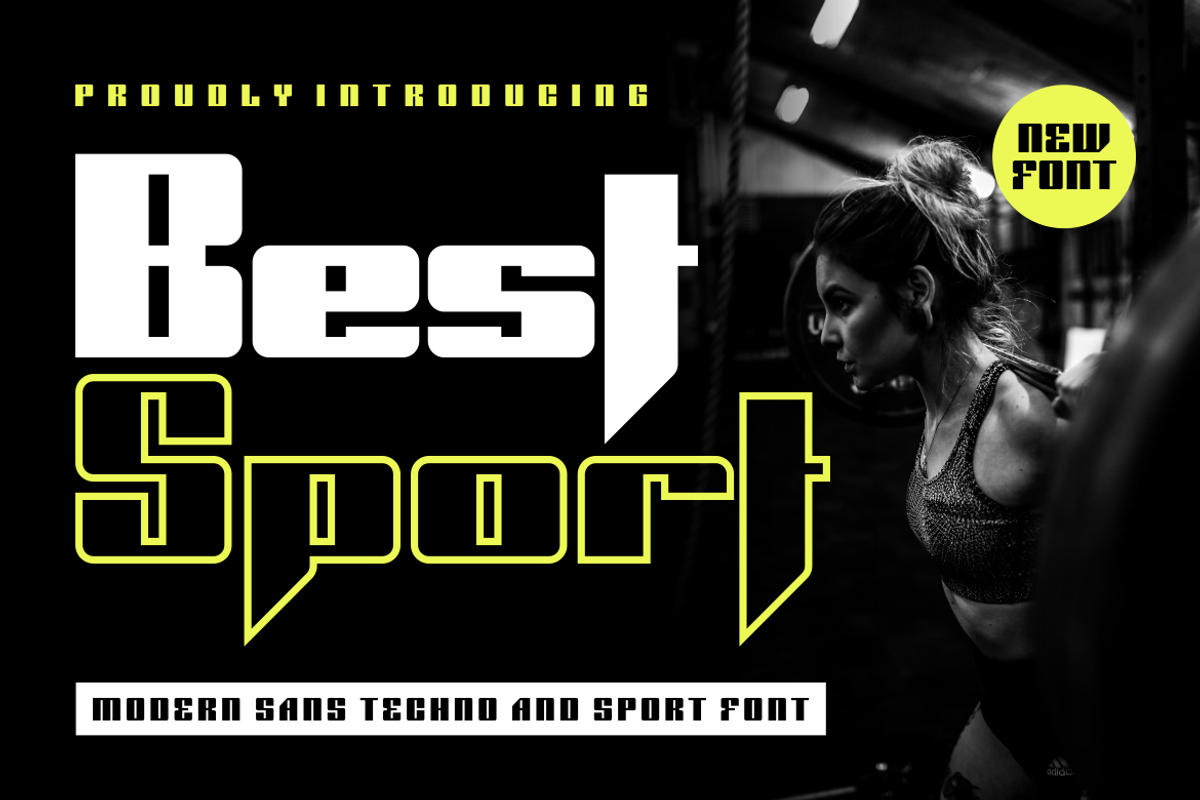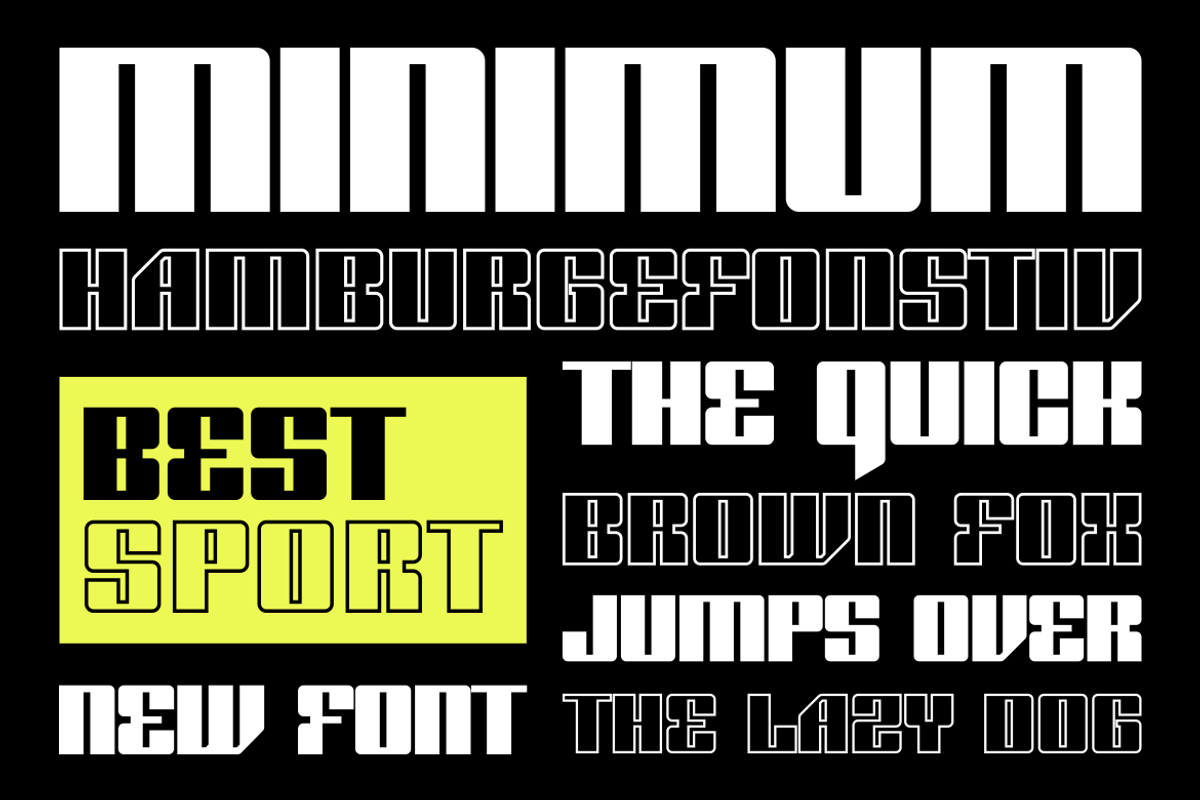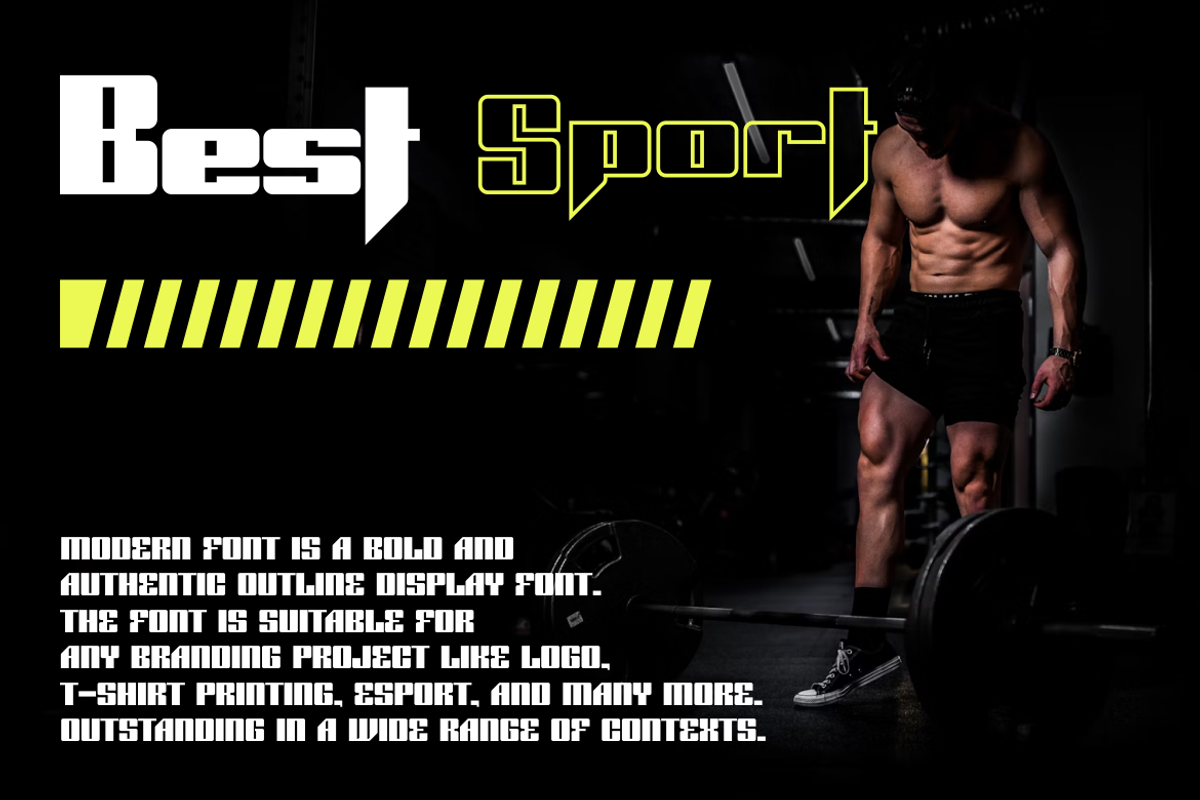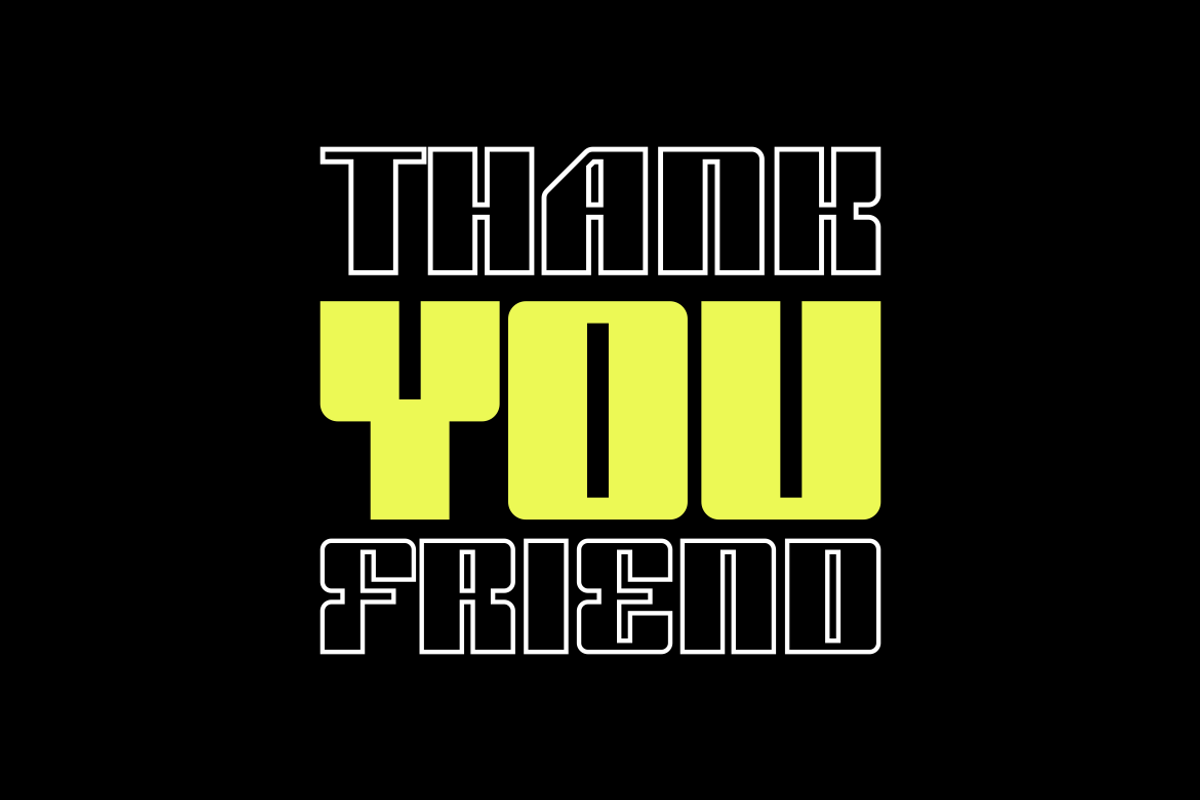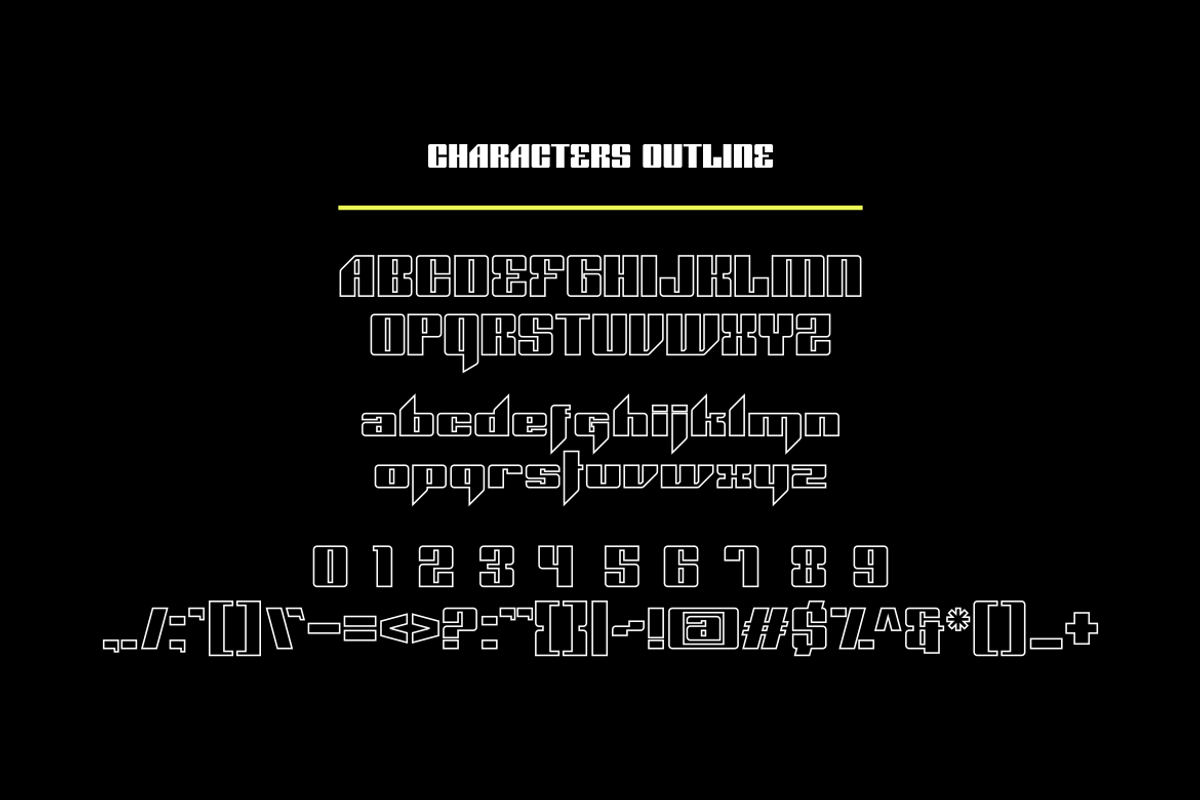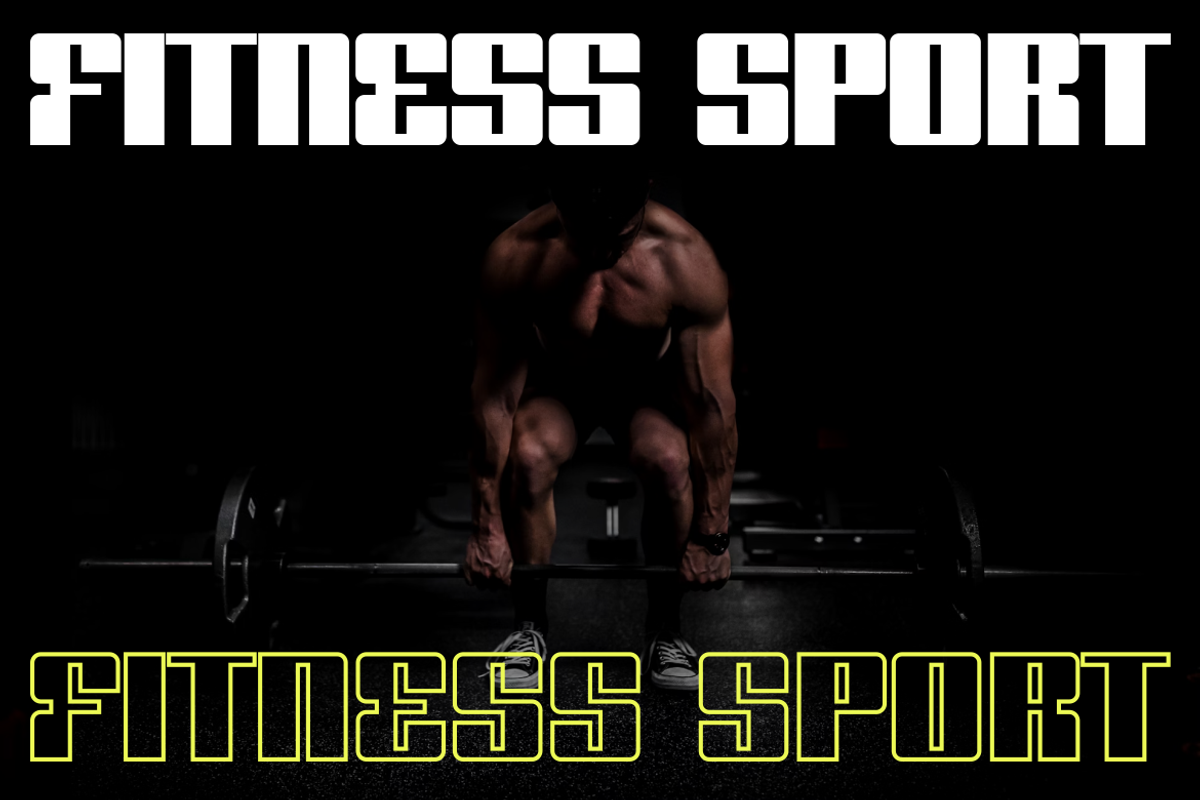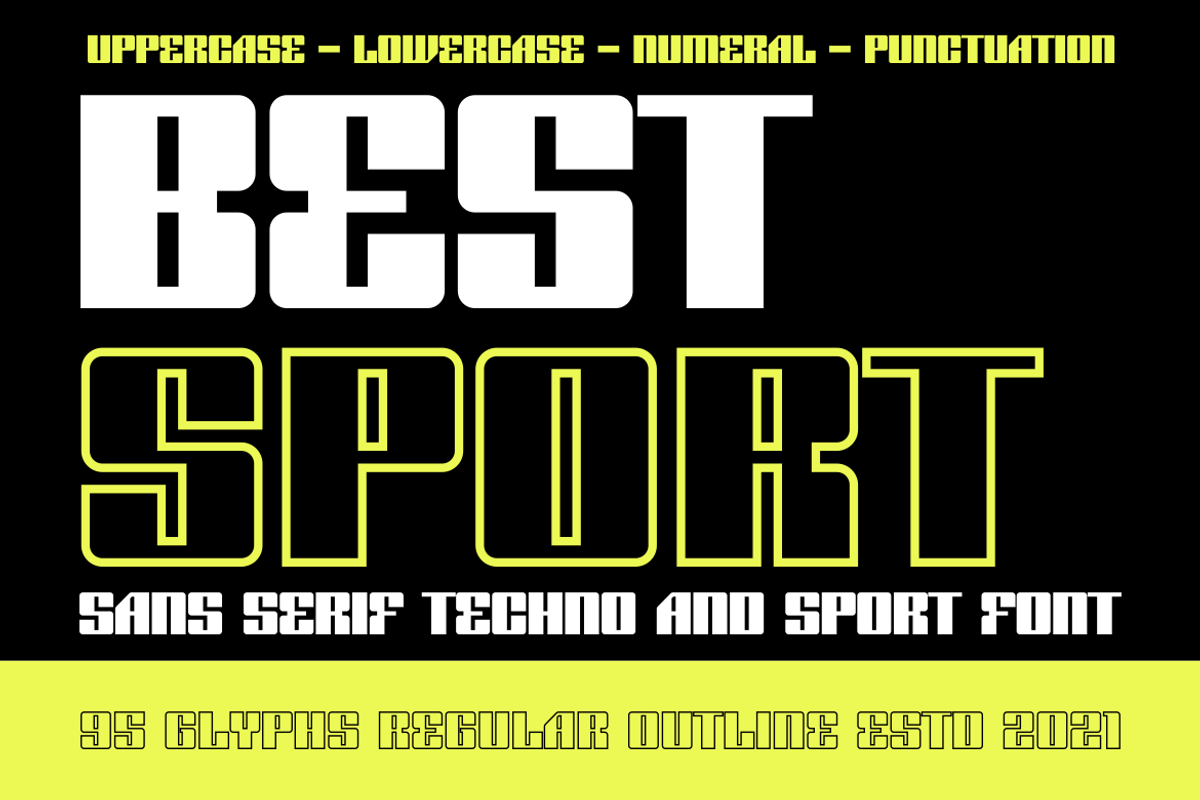
Best Sport Font
Introducing our new product Best Sport Modern Sans Techno And Sport Font
Best Sport Modern Font is a bold and authentic display font. The font is suitable for any branding project like logo, t-shirt printing, esport, and many more. outstanding in a wide range of contexts.